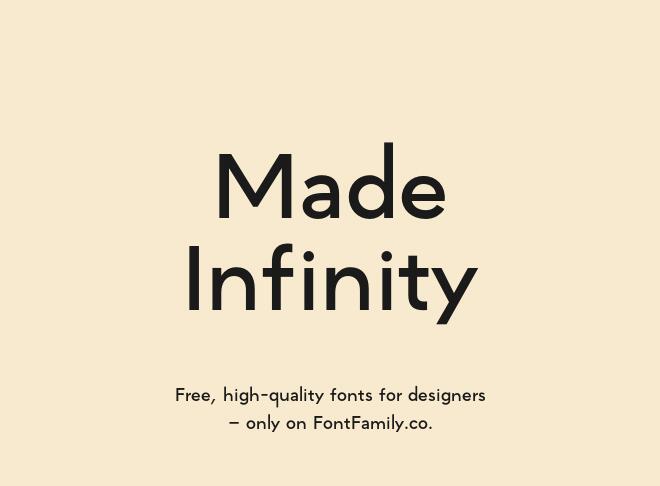
Made Infinity Font
Made Infinity Font is an elegant, modern, and minimalistic typeface created by Made Type Foundry. This sans serif font is characterized by its clean lines and sophisticated structure, making it an excellent choice for branding, logo design, and web typography. The font is reminiscent of popular typefaces like Helvetica and Futura, but with a unique twist that sets it apart. Its uniformity and simplicity make it highly readable, while its modern design gives it a fresh and contemporary feel. Made Infinity Font is free for personal use, making it a fantastic choice for designers seeking to elevate their projects with a touch of elegance and modernity. Its versatility and stylishness make it a must-have in any designer's toolkit.